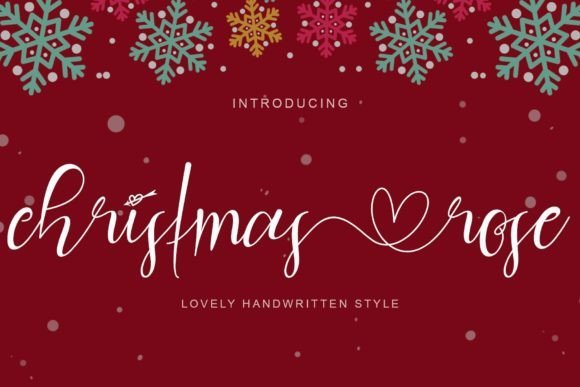
Introduction to Christmas Rose Font
β€œChristmas Rose” is a handwritten font with a very beautiful and unique love decoration.
This font is equipped with uppercase, lowercase, alternates, numerals, punctuation, and multilingual support Very suitable for weddings, engagements, stickers, banners, posters, print, branding, Christmas, Valentine, and others.